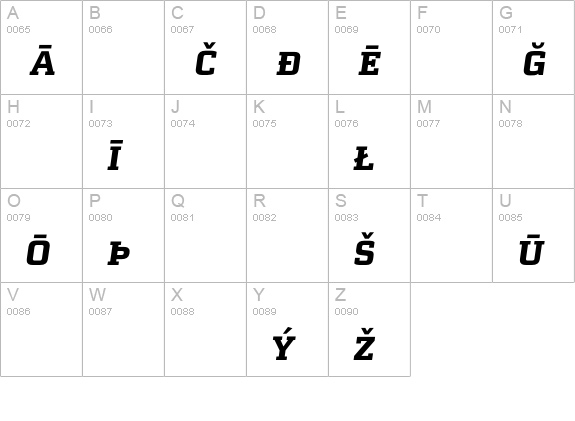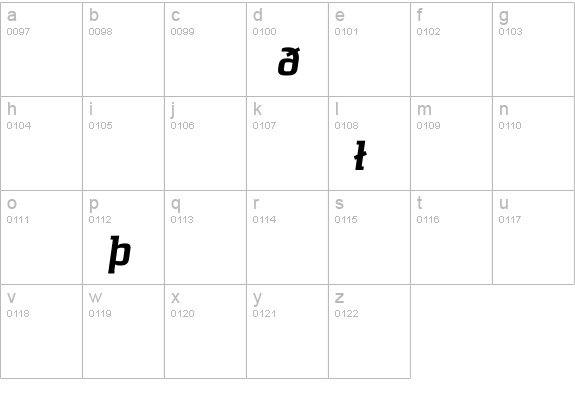
MorganAvec Bold ItalicPi is a strong, high-contrast variant in the MorganAvec typeface family \xE2\x80\x94 well suited to headlines, attention-grabbing titles, and strong calls-to-action.
MorganAvec Bold ItalicPi is a stunning and versatile font that exudes sophistication and elegance. With its bold and italic design, this font commands attention and adds a touch of luxury to any project. The sleek and modern look of MorganAvec Bold ItalicPi makes it perfect for branding, advertising, and design projects that require a strong and stylish typeface. The best part? MorganAvec Bold ItalicPi is available for free download at FontsMarket.com. This means that you can easily access this premium font without having to spend a dime. Whether you're a professional designer looking for a high-quality font for your next project or a casual user in need of a standout typeface, MorganAvec Bold ItalicPi has got you covered. Download MorganAvec Bold ItalicPi today and elevate your designs with this beautiful and impactful font that is sure to make a lasting impression.